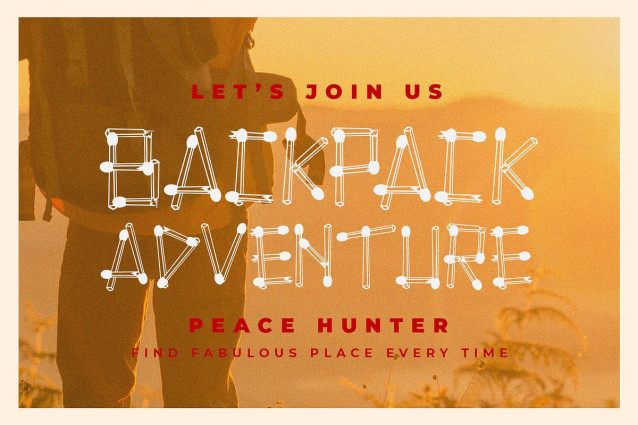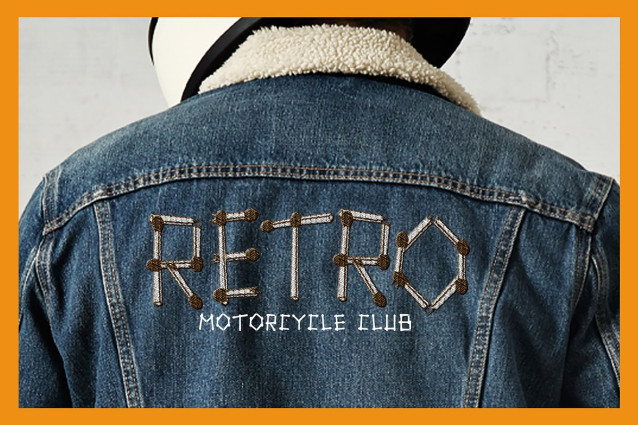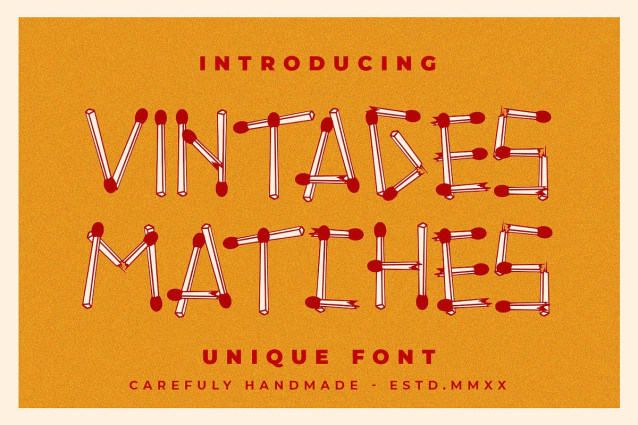
Vintages Matches Font
Vintages Matches Font is a matchstick font – Featuring 3D drawn matchsticks that give this display font a playful and distinctly technical feel. Be inspired by its unique charm!
Came with competed Numbers and Punctuation. And also Multilingual Support.
It is great for posters, branding, packaging, apparel, logos, and more